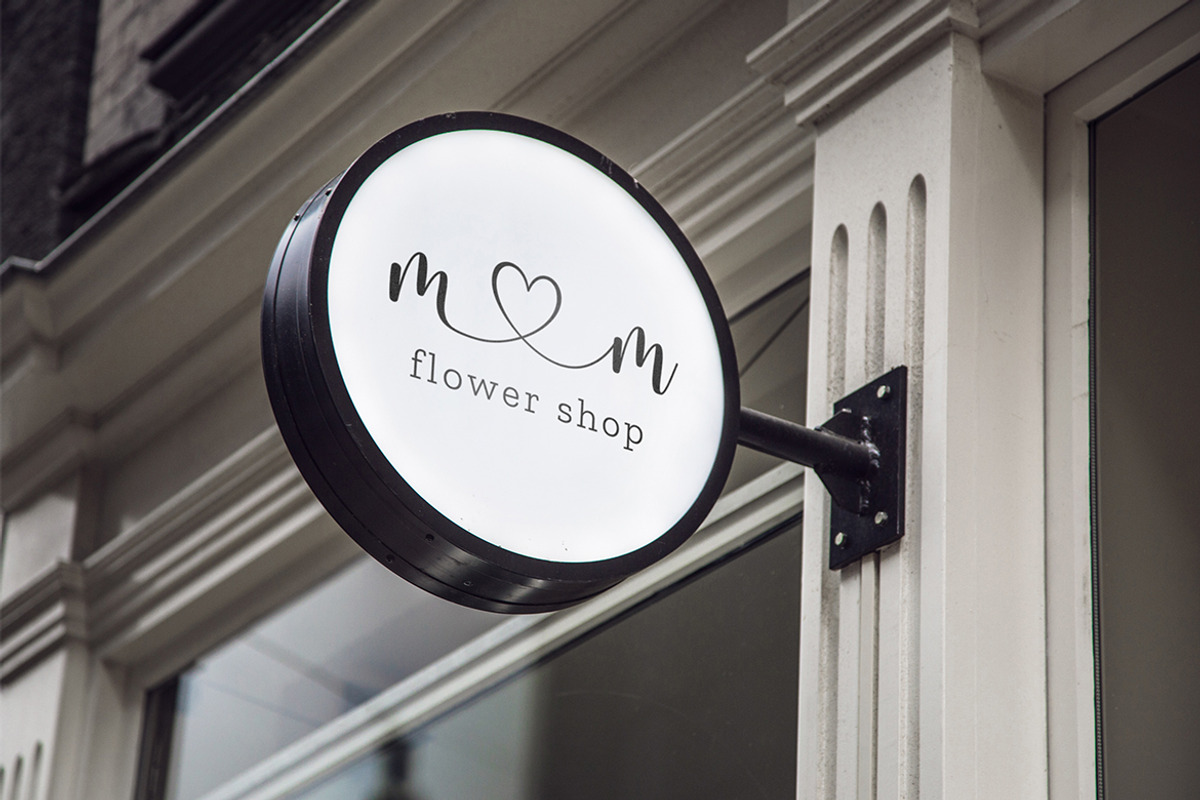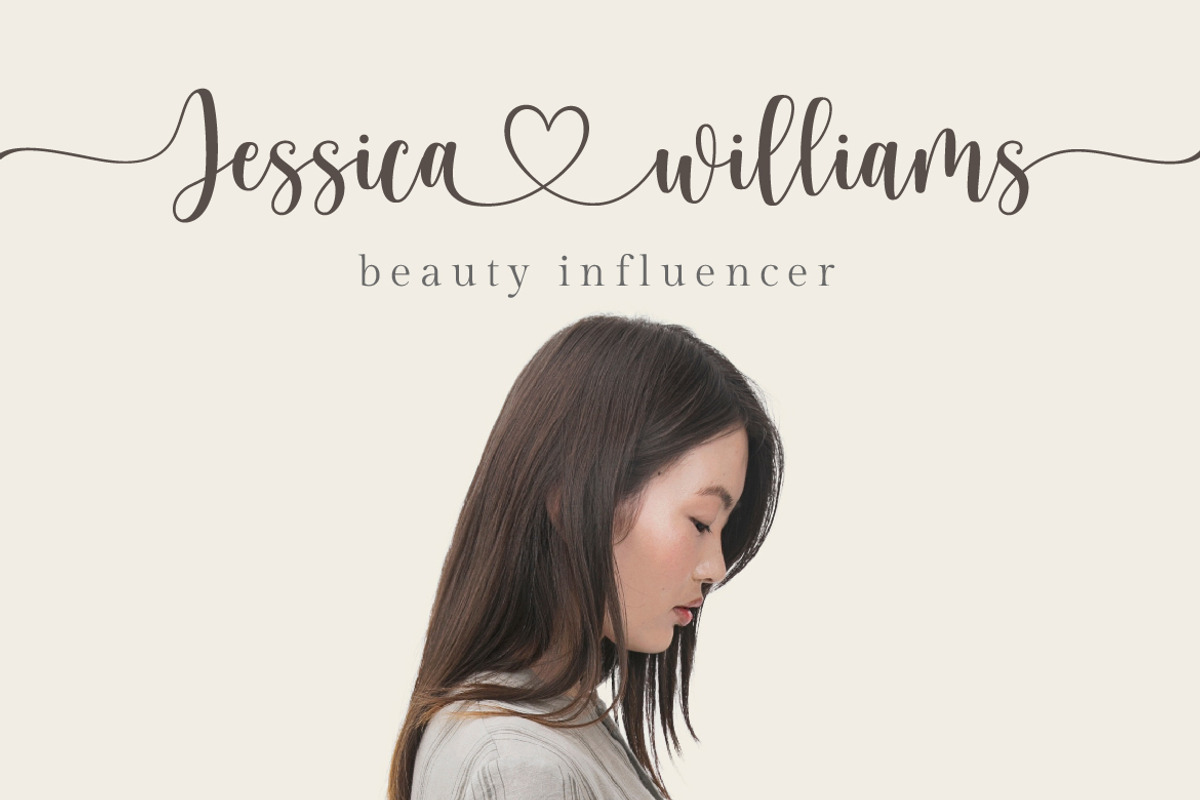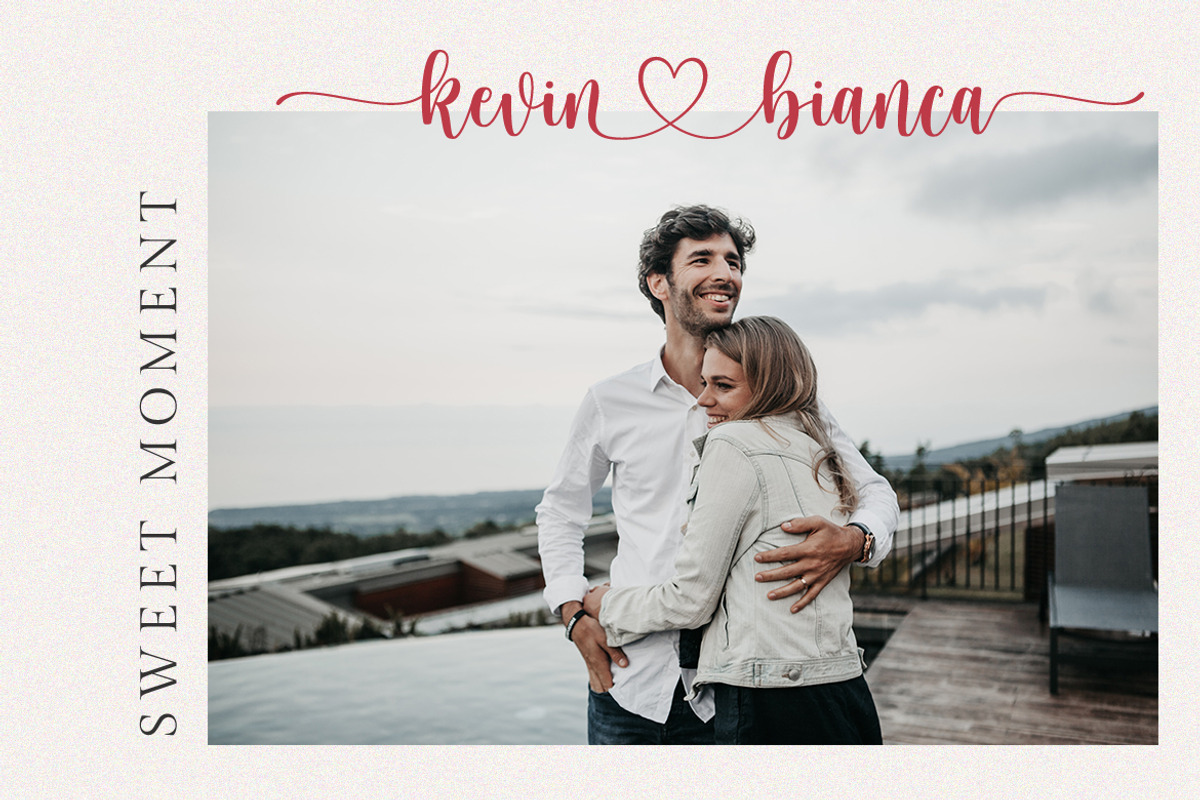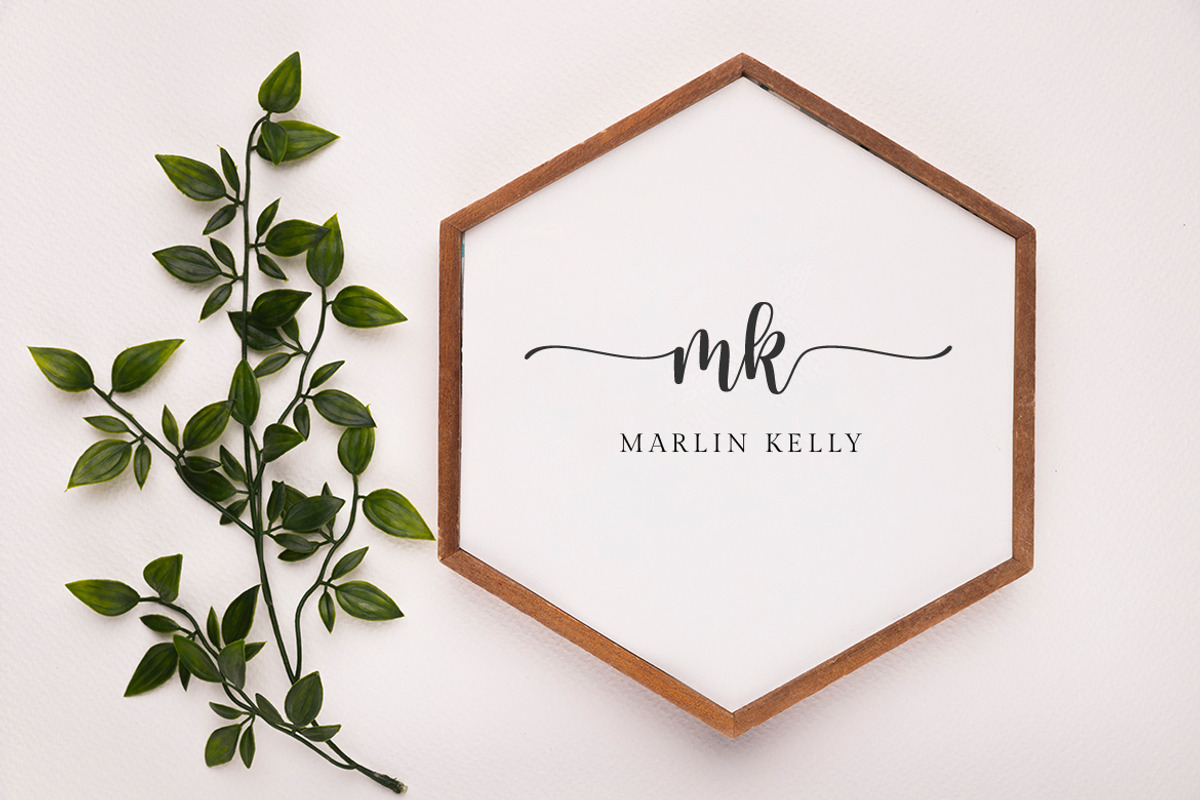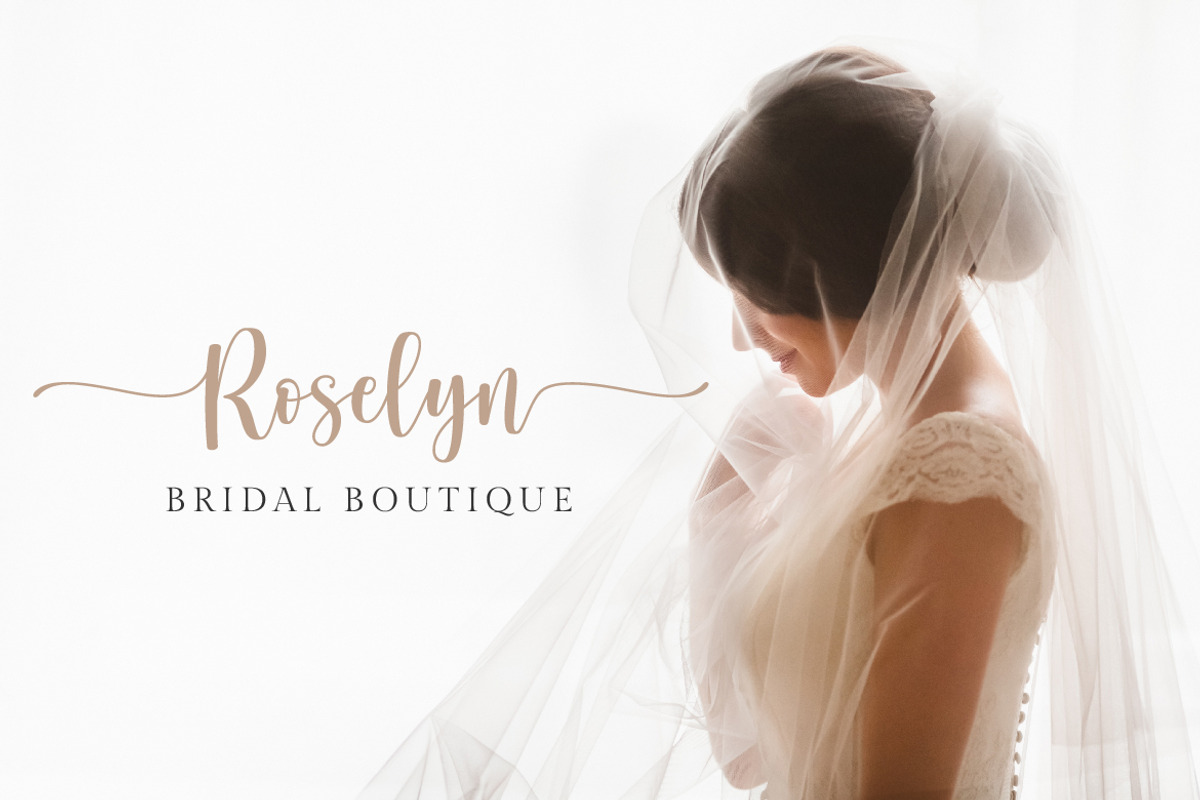
Hello Honey is a beautiful chic script that is suitable for branding, wedding invitations, and other romantic projects.
- Lowercase beginning and ending swash
- Uppercase beginning swash
- Connecting heart
- Initials